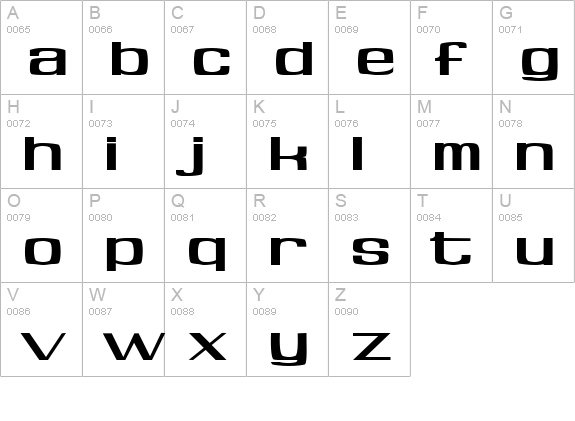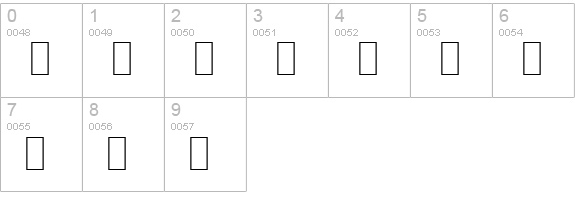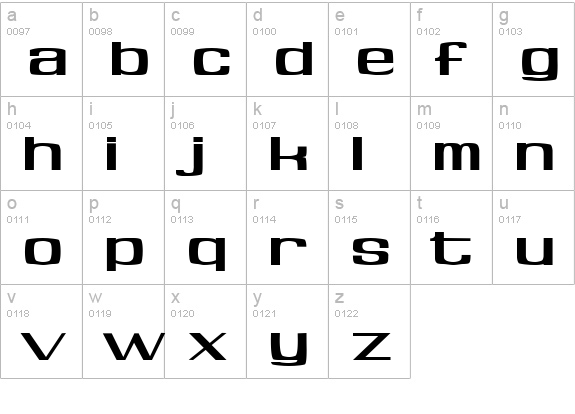
Soft Hits is a beautifully crafted font that exudes elegance and sophistication. Its gentle curves and soft edges give it a soothing and calming presence, making it perfect for a variety of design projects. Whether you are creating a logo, a website, or a poster, Soft Hits will add a touch of class and refinement to your work. This font is not only aesthetically pleasing, but it is also incredibly versatile. Its clean and legible letterforms make it suitable for both headlines and body text, ensuring that your message is conveyed with clarity and style. Soft Hits effortlessly combines modernity with a timeless appeal, making it a go-to choice for designers seeking a font that can stand the test of time. One of the best features of Soft Hits is that it is available for free. Yes, you read that right! This exquisite font can be freely downloaded from FontsMarket.com, allowing designers to enhance their projects without any financial burden. We believe that creativity should never be limited by budget constraints, and that is why we are thrilled to offer Soft Hits as a free download. Don't miss out on the opportunity to add Soft Hits to your font collection. Its versatility, elegance, and the fact that it is freely available to download at FontsMarket.com make it an invaluable asset for any designer. So go ahead, unleash your creativity, and let Soft Hits elevate your designs to new heights.